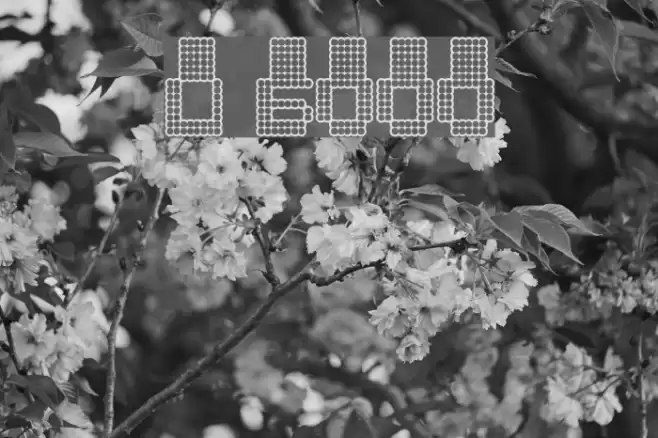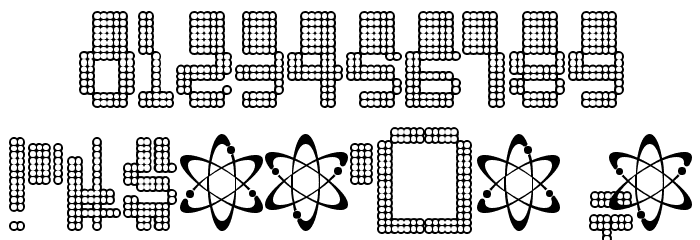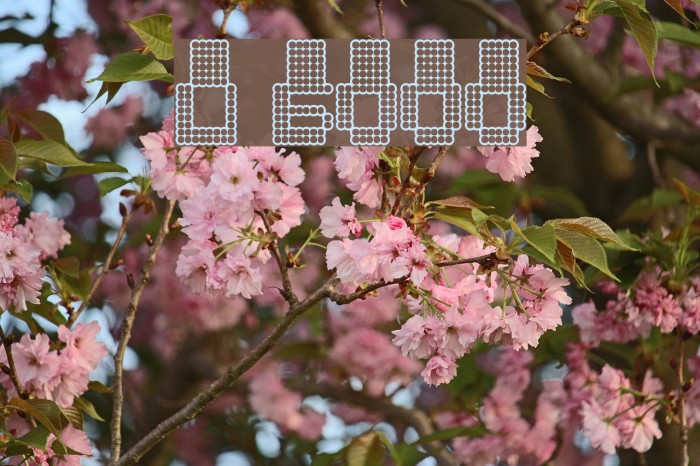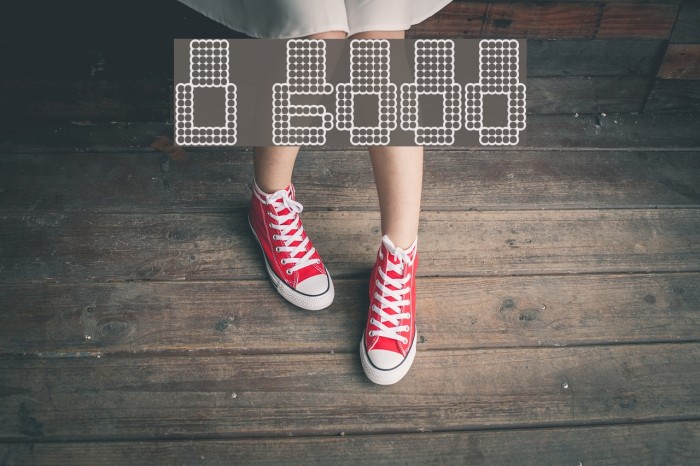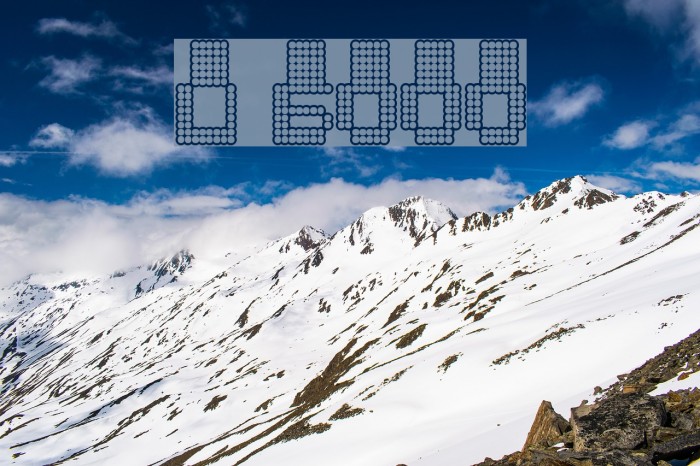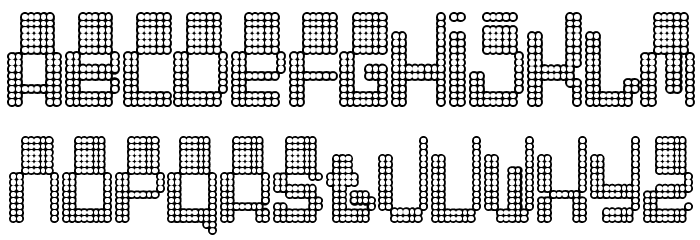
Oddessey 6000 Font
Oddessey 6000 Description
This font features a unique and futuristic design composed of small circular dots forming each character. The letters and numbers are constructed with a grid-like pattern, giving it a pixelated and digital appearance. The style is reminiscent of retro video game graphics, with a playful yet structured aesthetic. The characters are evenly spaced, and the use of dots creates a sense of movement and energy. This font is ideal for projects that require a modern and technological feel, such as digital art, gaming interfaces, or sci-fi themed designs.
A futuristic, dot-based font with a digital and pixelated style from Images & Symbols fonts.
- Proposed Projects: Ideal for digital art, gaming interfaces, sci-fi themed designs, and tech-related branding.
- Use Case: Logos, Headlines, Digital Art